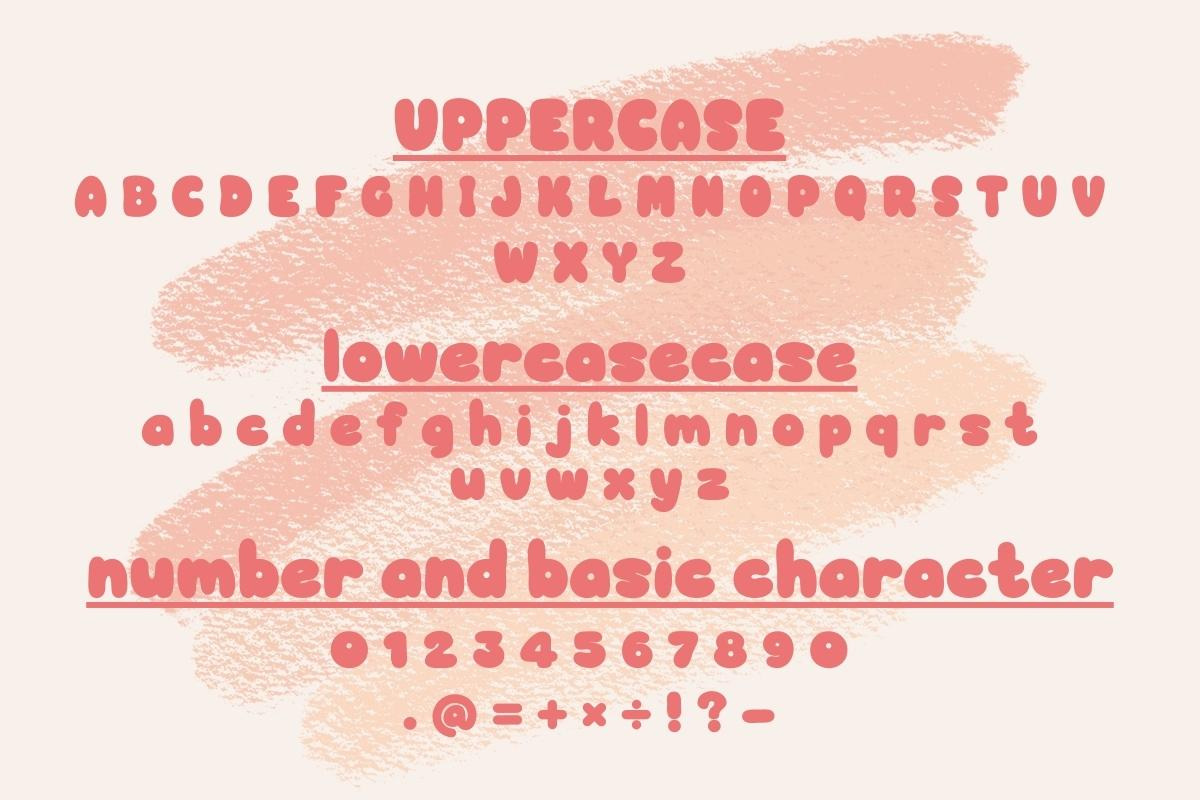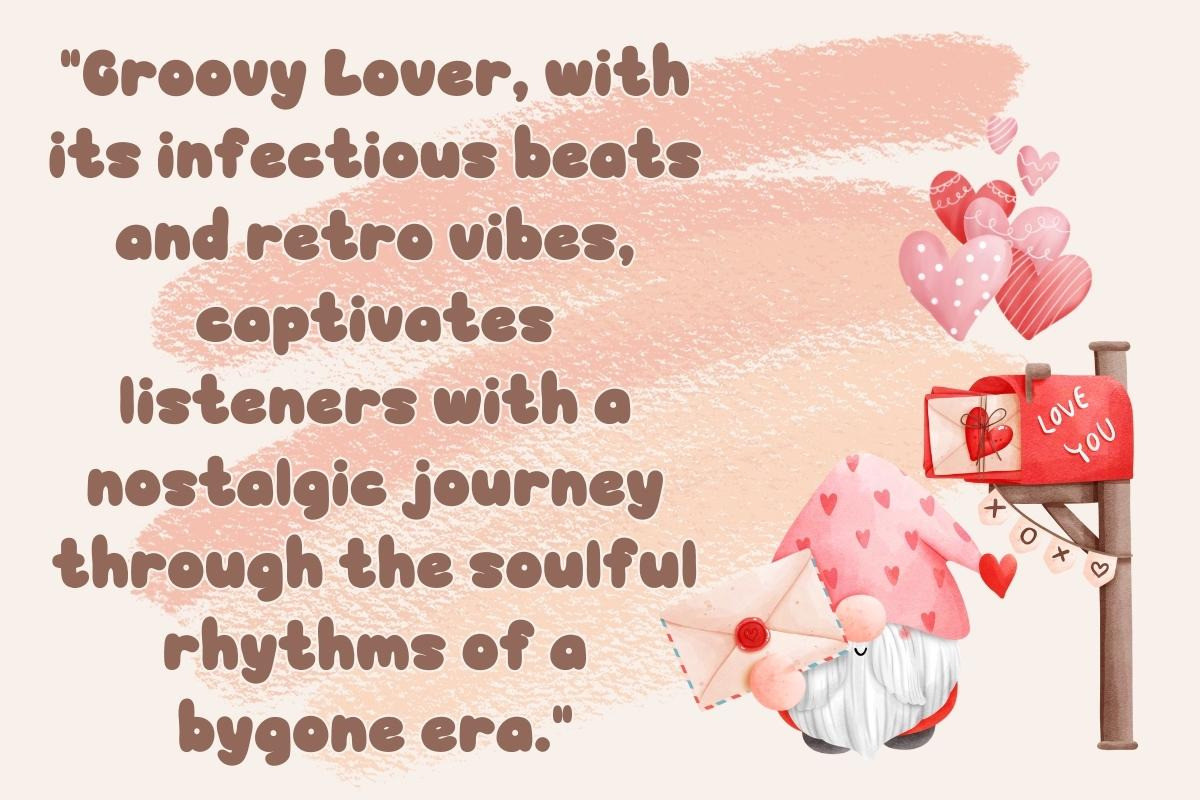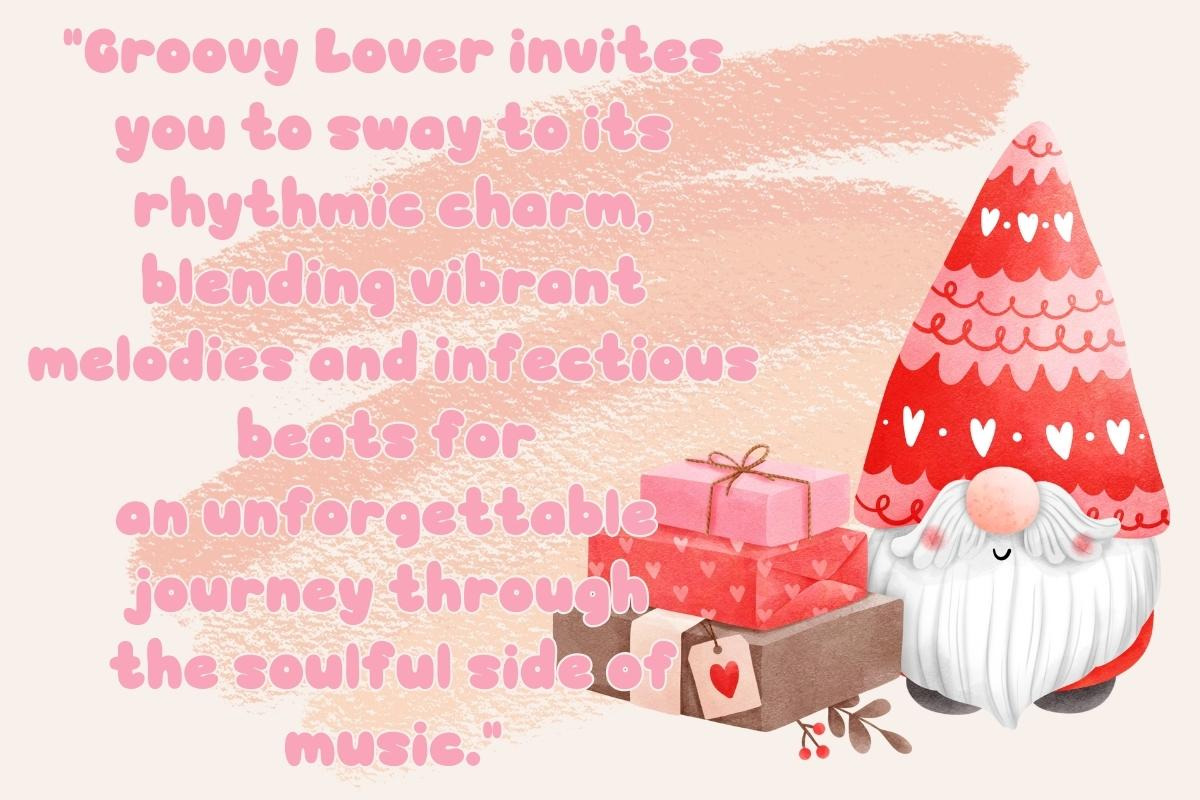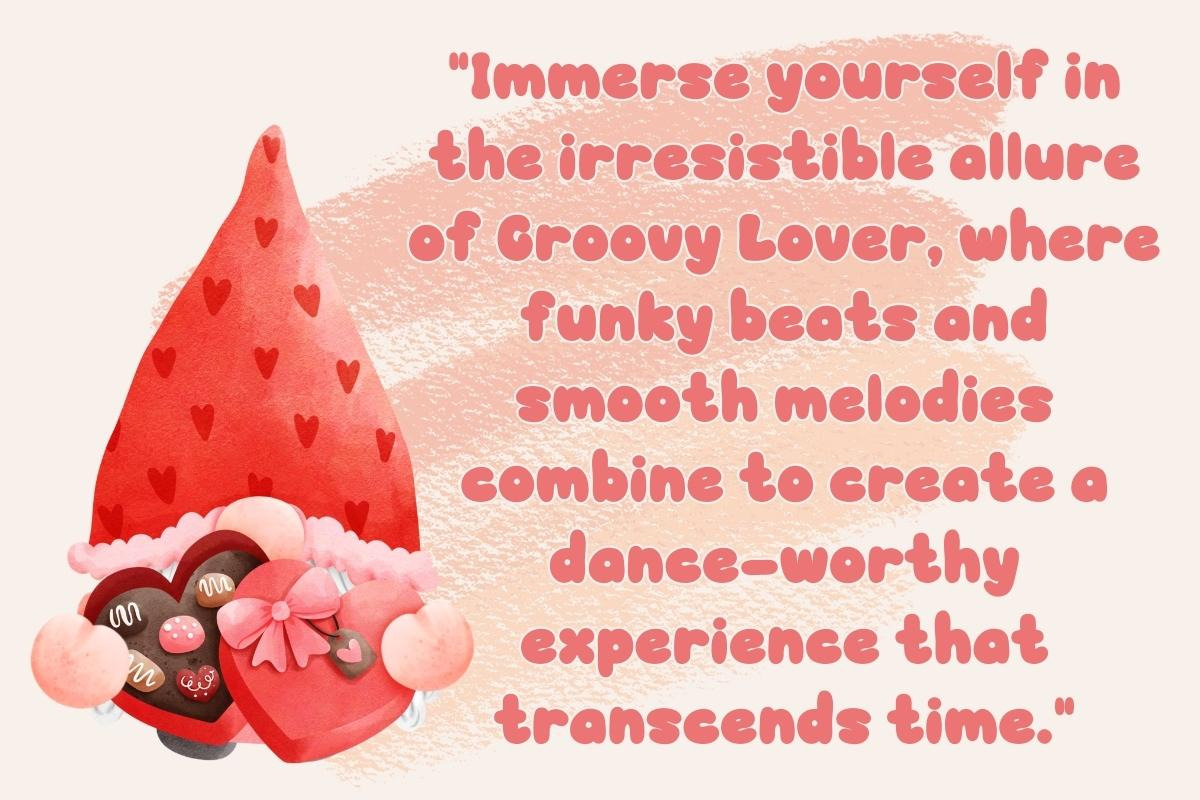
Groovy Lover - Handwritting
Embrace Nostalgia with Groovy Lover: Dive into the past with our Groovy Lover font, a mesmerizing blend of retro vibes and timeless elegance. This font whispers sweet memories of the groovy era, inviting you to infuse your designs with a touch of nostalgic charm.